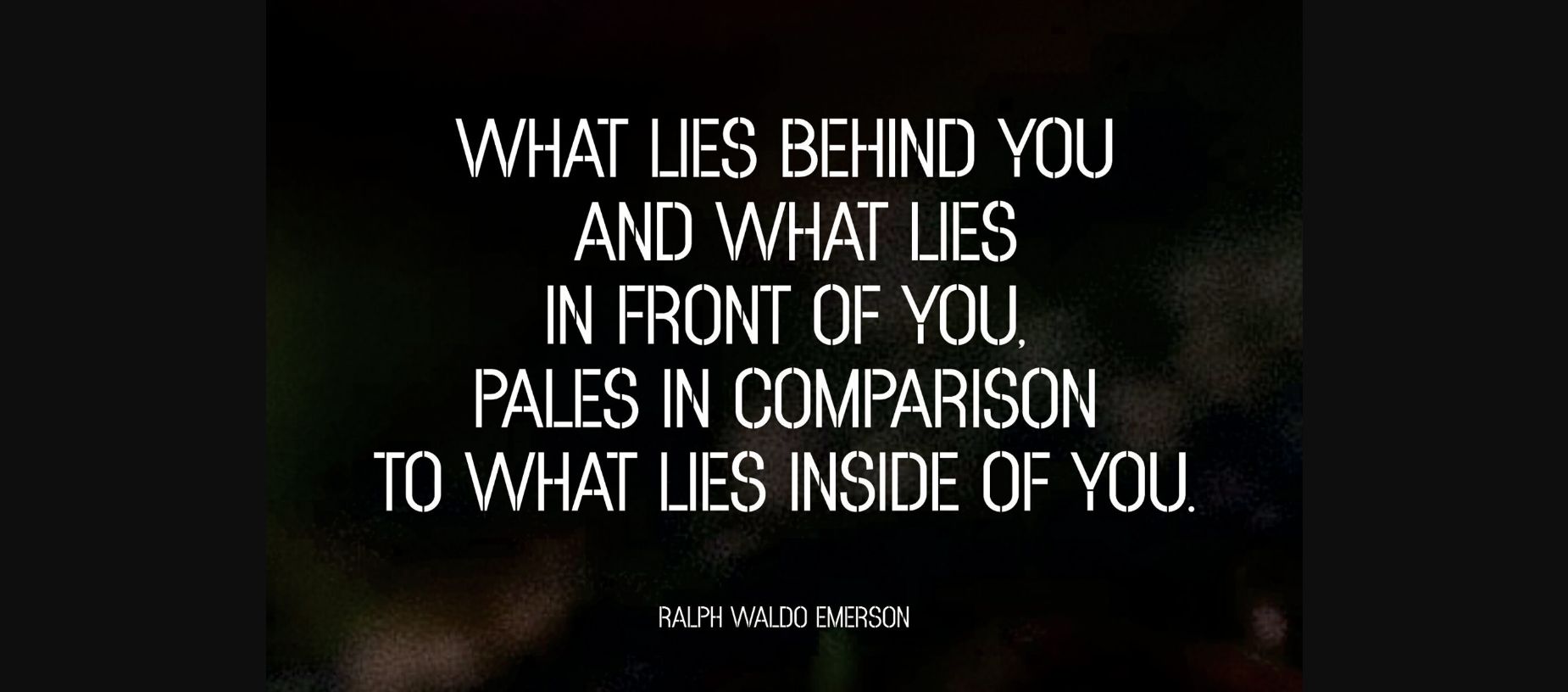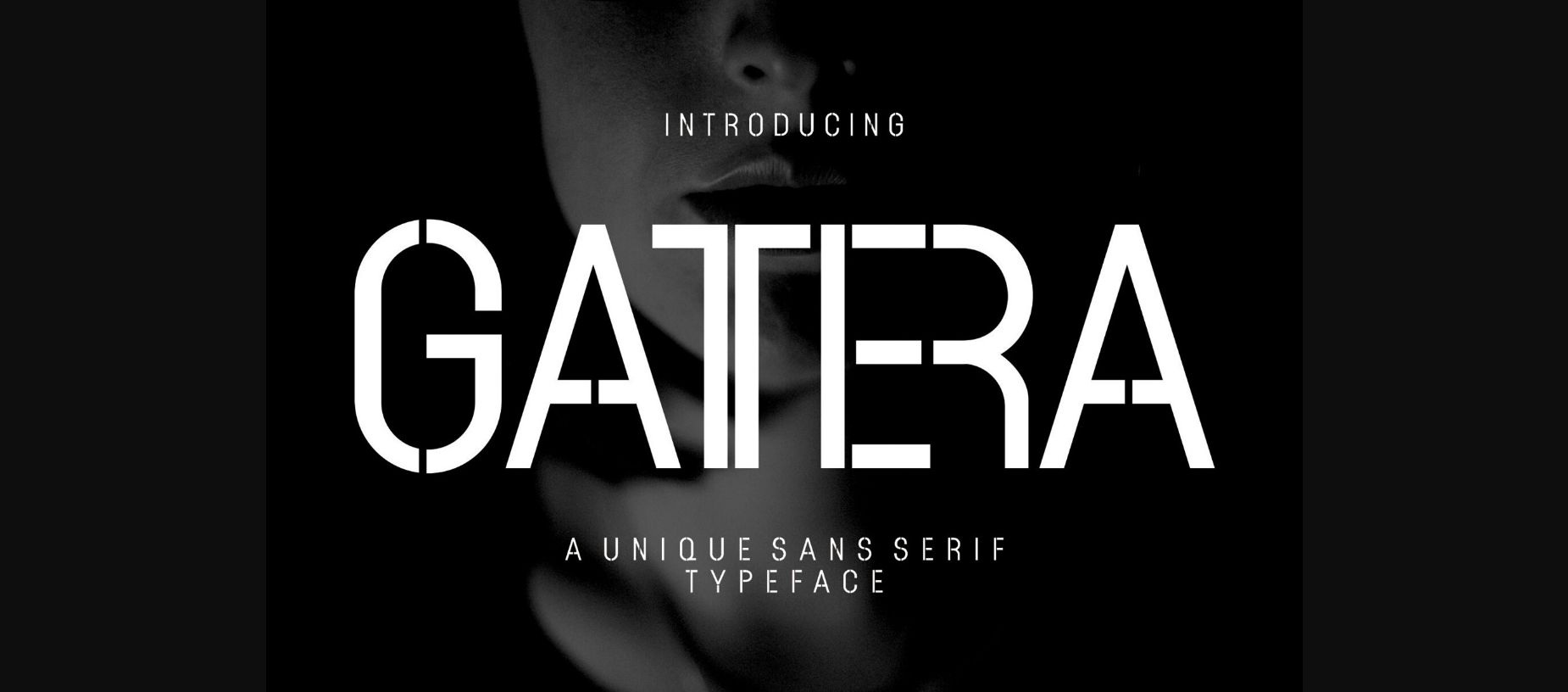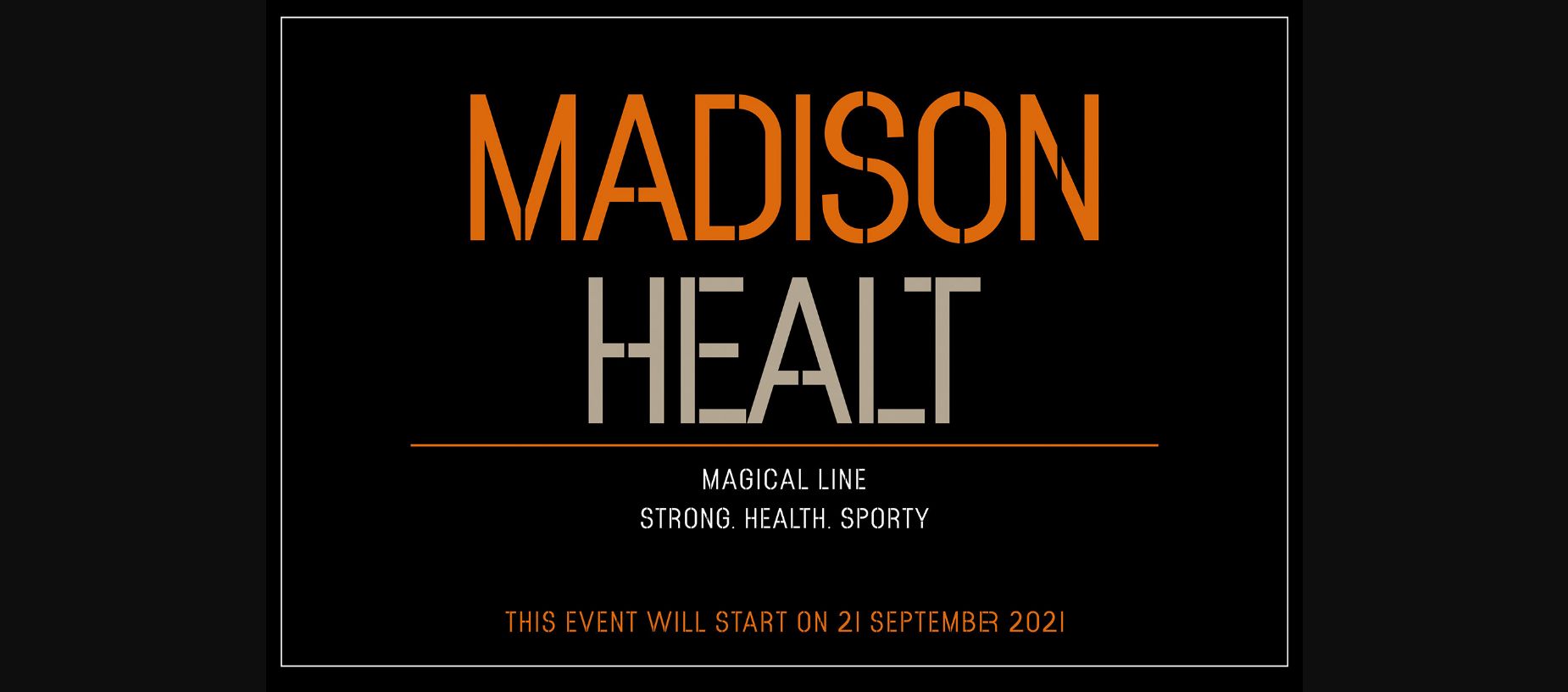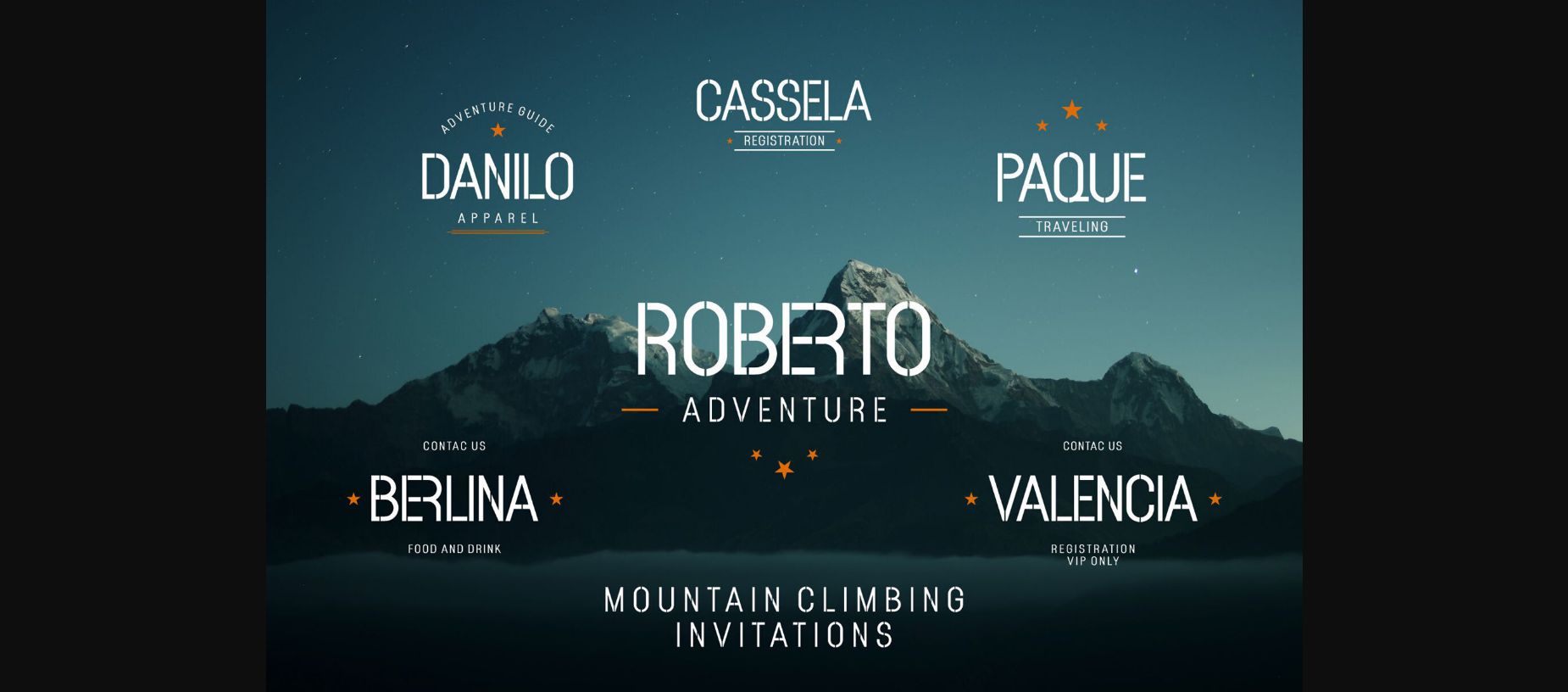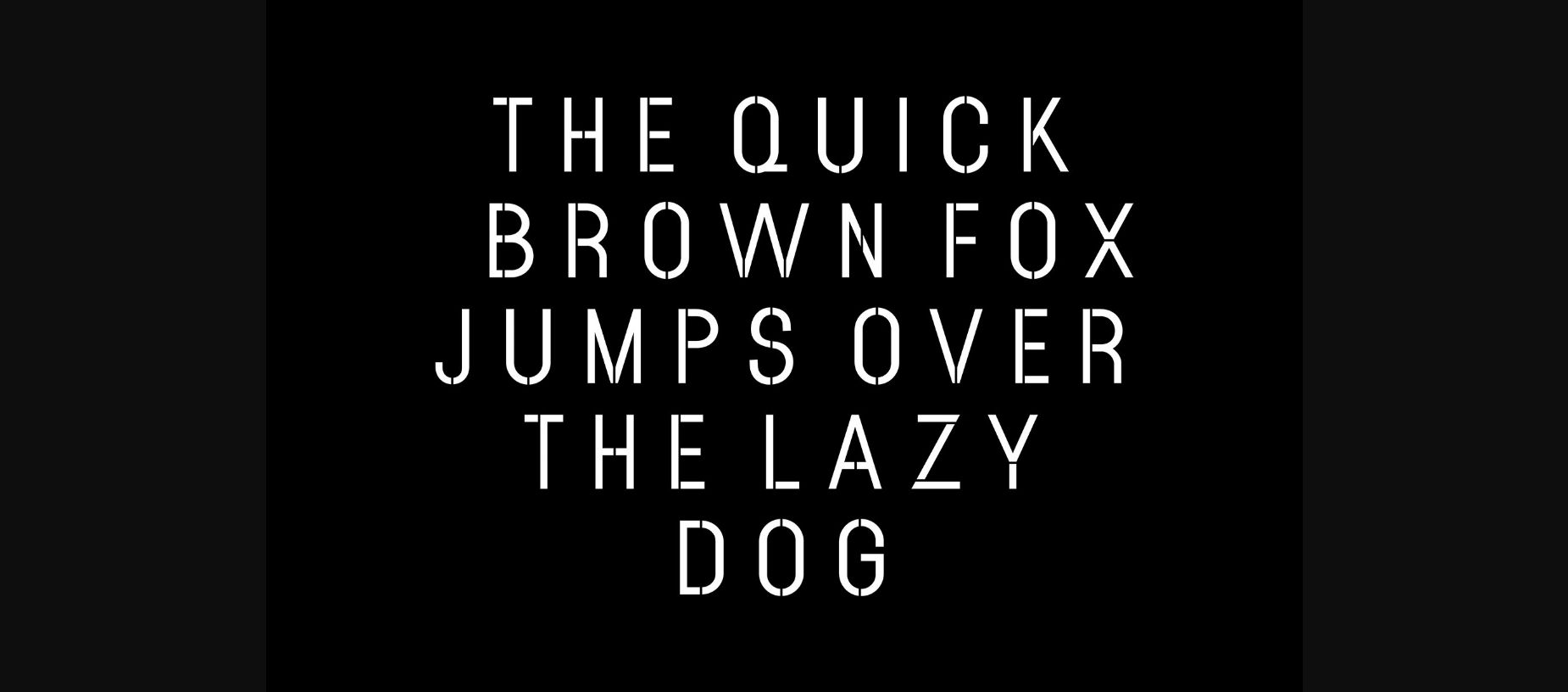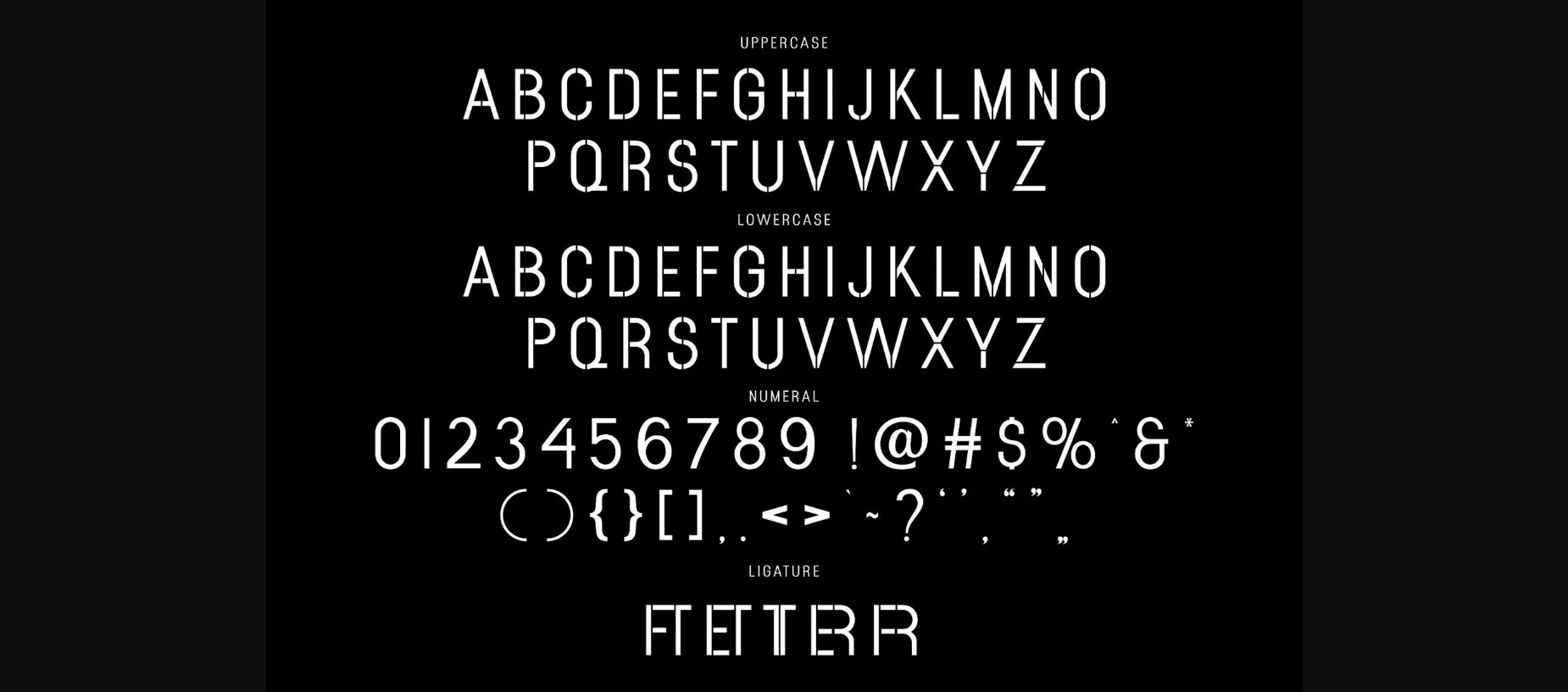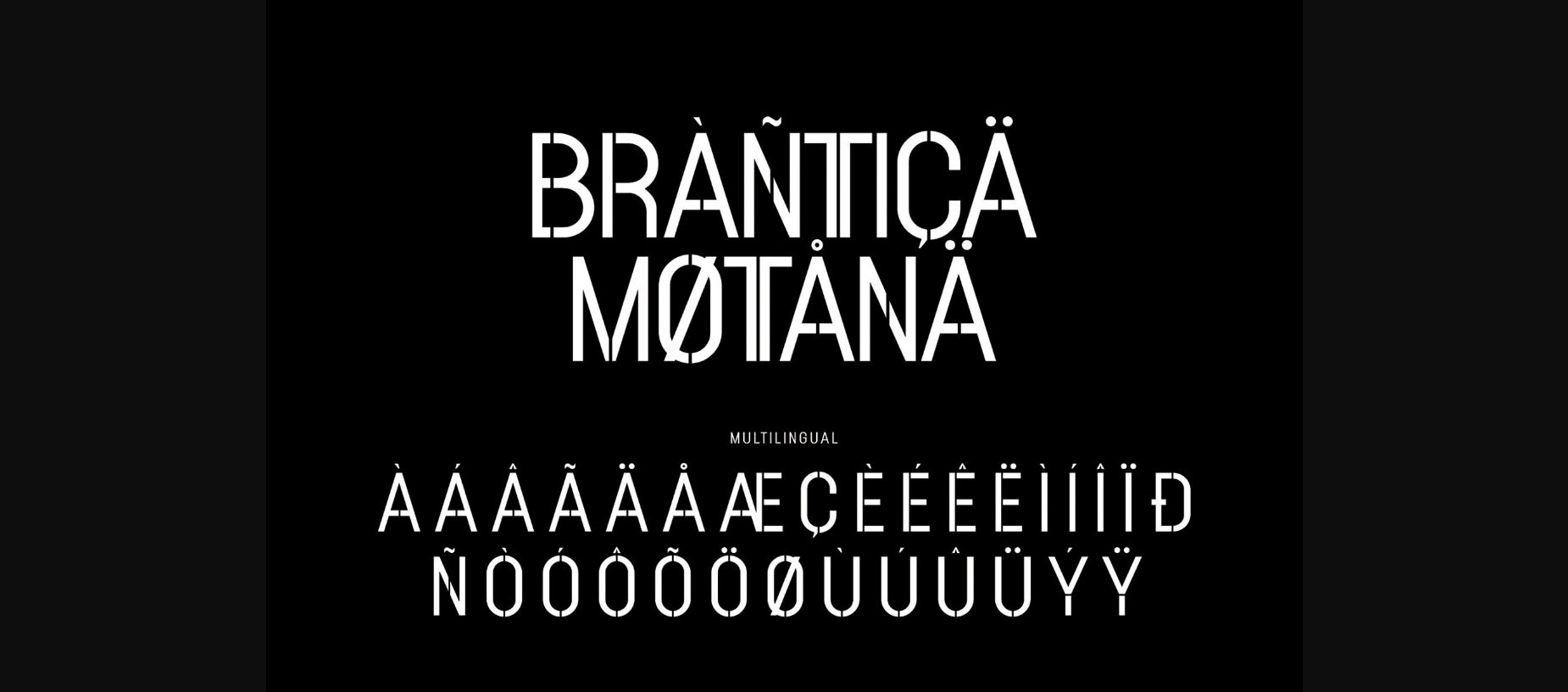
About Gattera Font
Gattera is a bold and assertive sans serif font. No matter the topic, this font will be an
incredible asset to your fonts’ library, as it has the potential to elevate any creation.